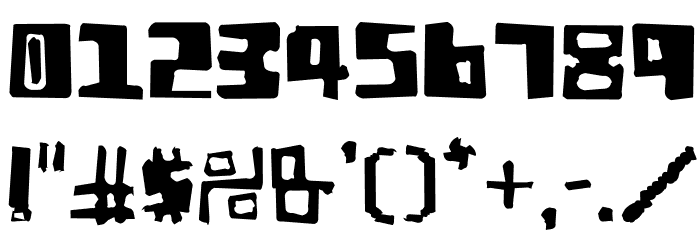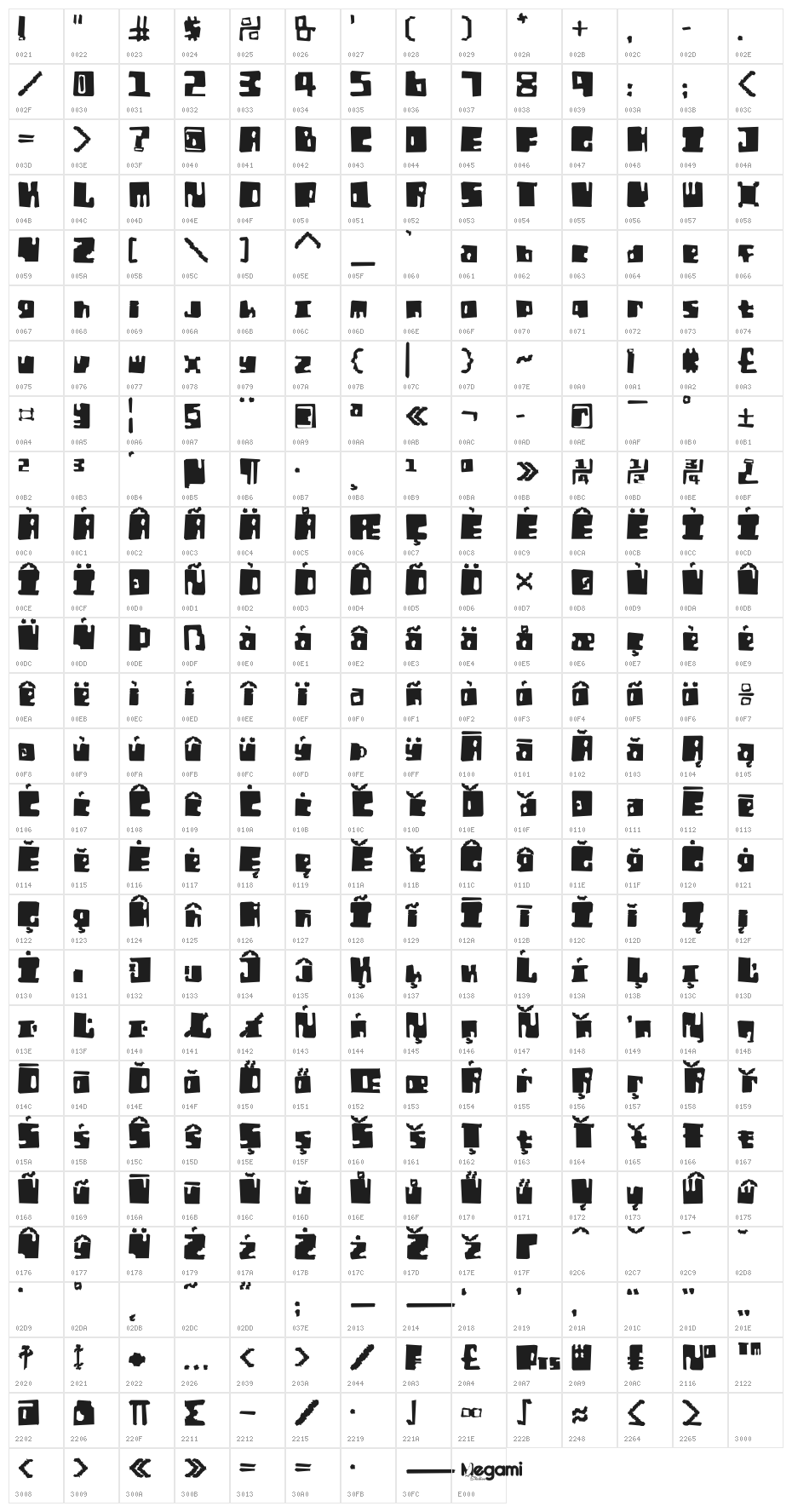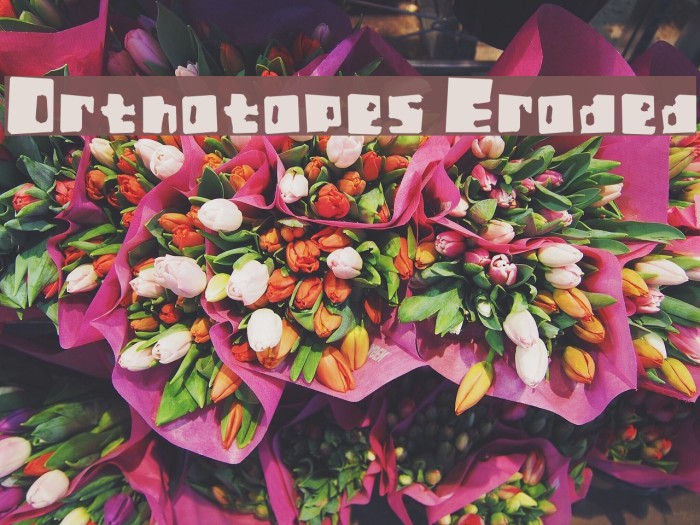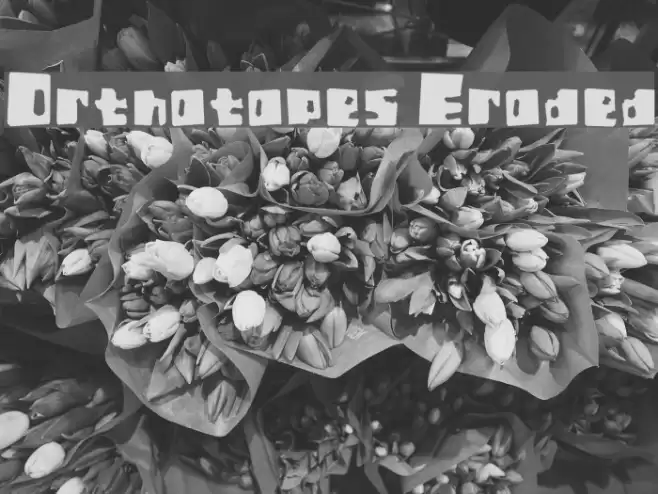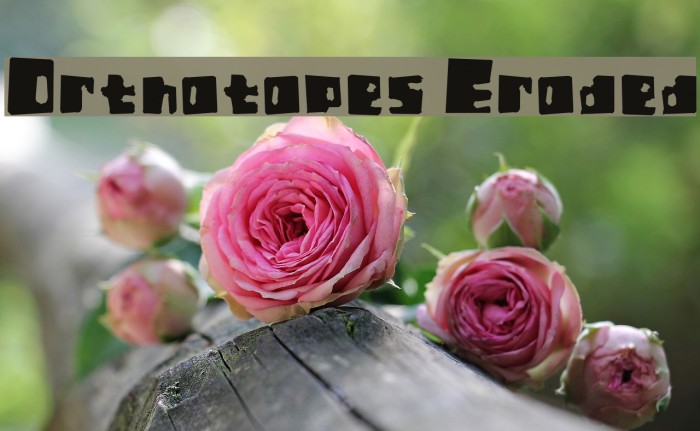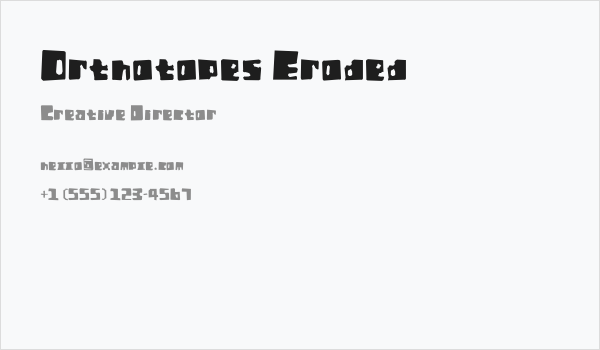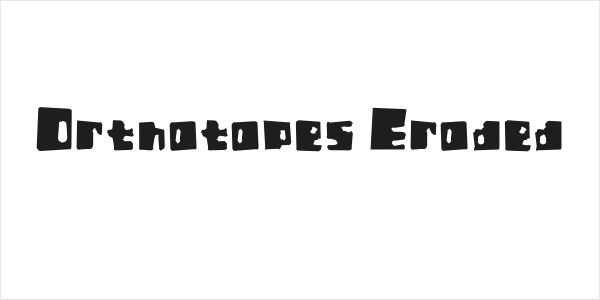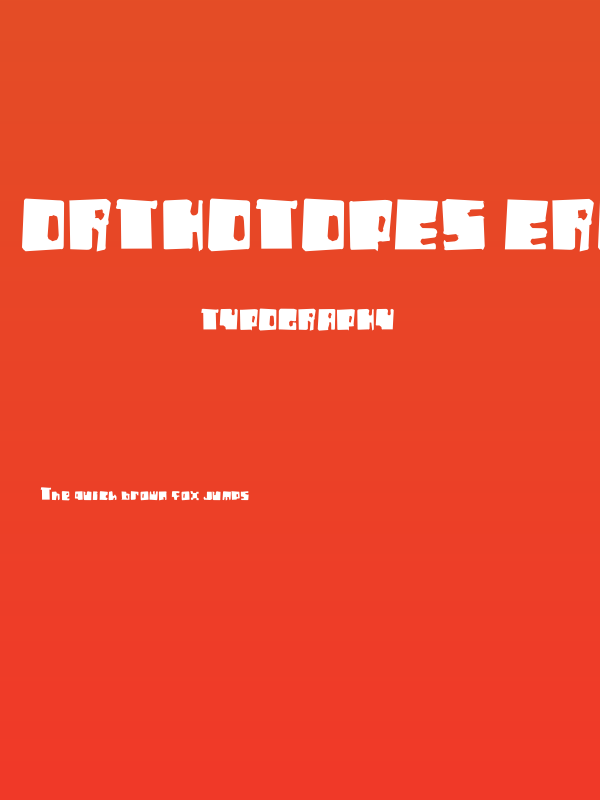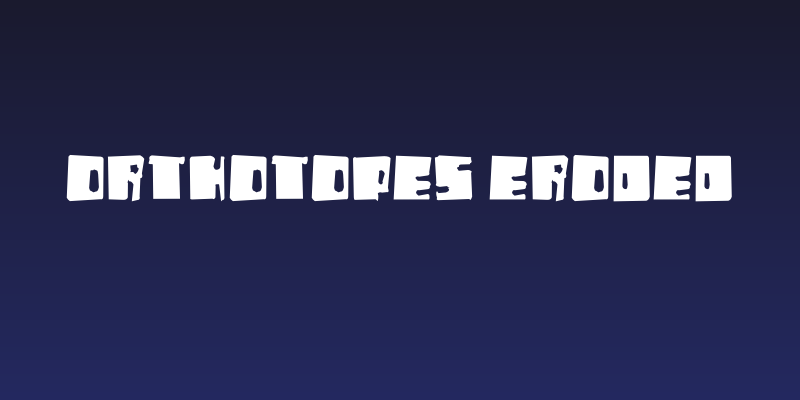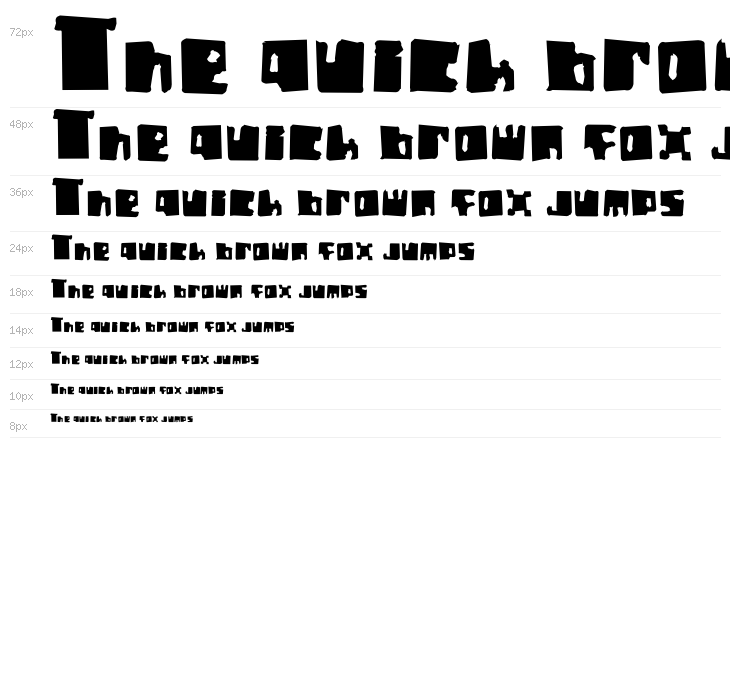
Orthotopes Eroded Font
Orthotopes Eroded Description
This font features a bold and rugged design with an eroded, distressed appearance. The characters are blocky and substantial, giving them a strong presence on the page. Each letter appears as if it has been weathered or carved, with irregular edges and a slightly uneven texture. This creates a unique, eye-catching effect that is both modern and industrial. The font maintains a consistent weight throughout, with a medium contrast between thick and thin strokes. The spacing between characters is relatively tight, enhancing the compact and impactful nature of the design.
Overall StyleModern, Industrial
Proposed ProjectsIdeal for posters, album covers, branding for edgy or industrial-themed products, and any project requiring a strong, impactful typeface.